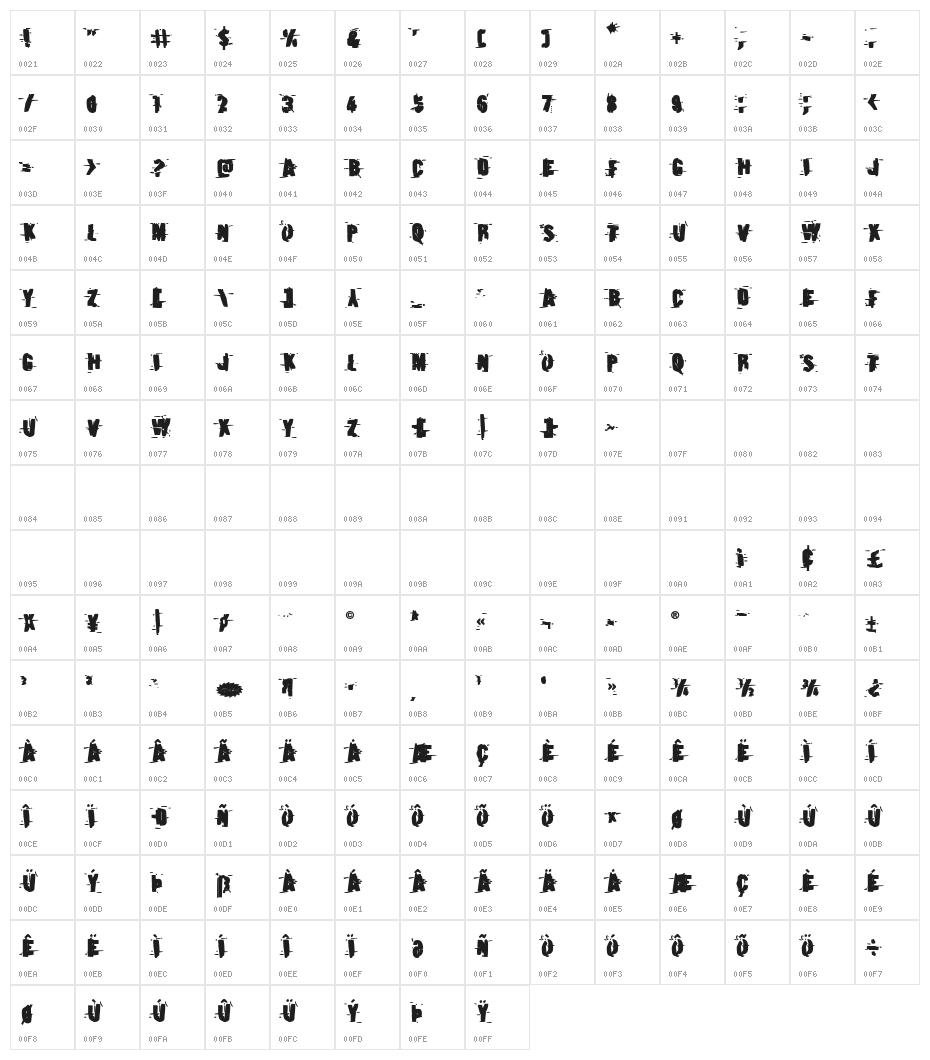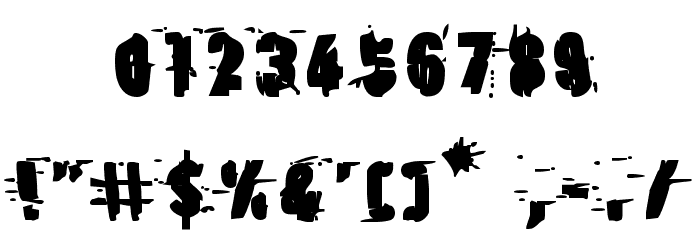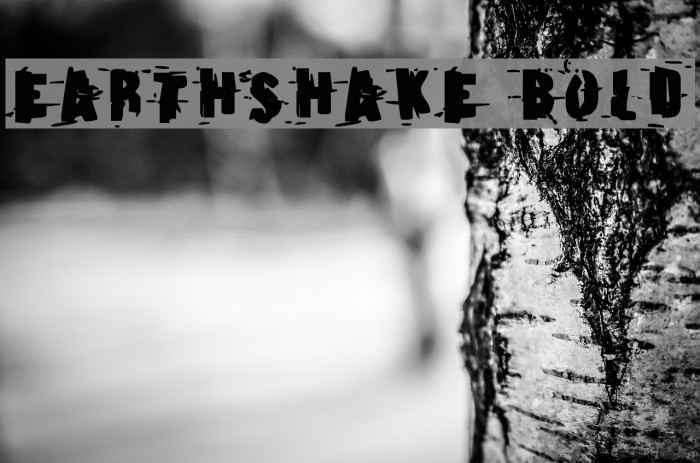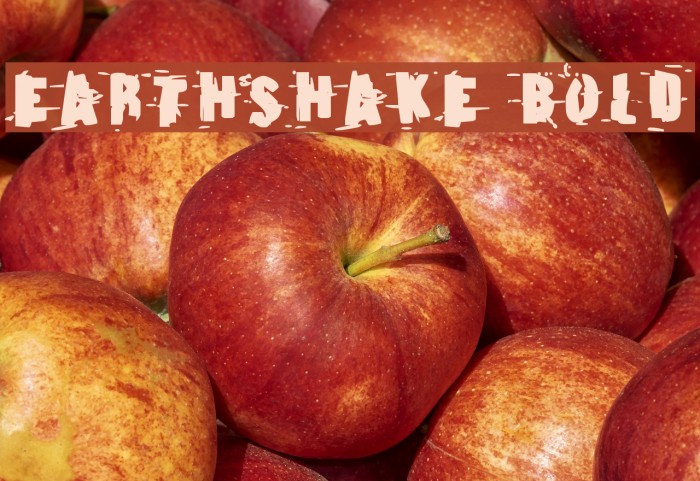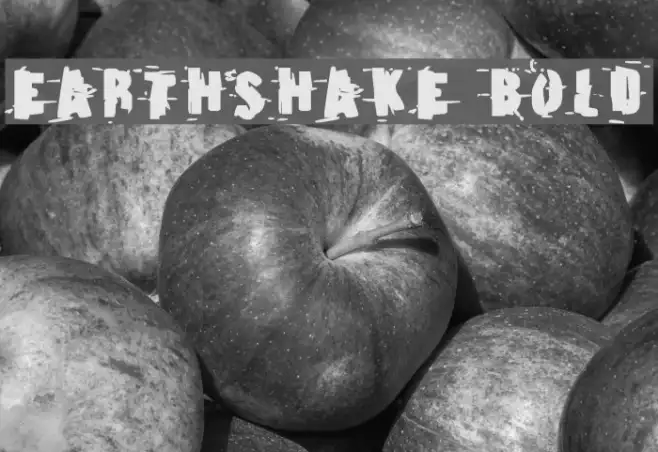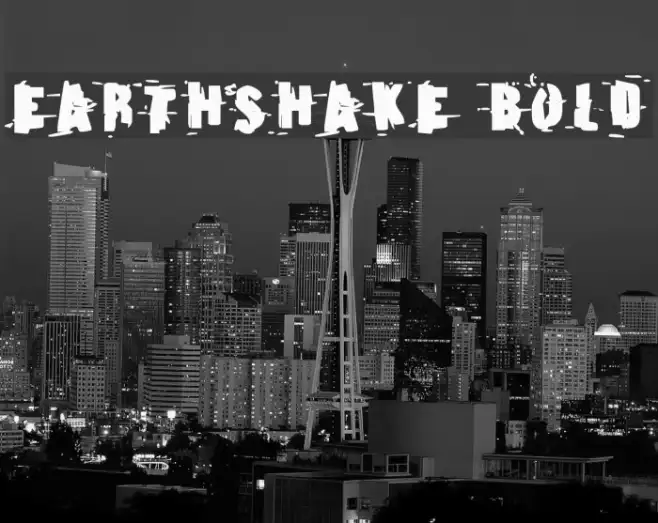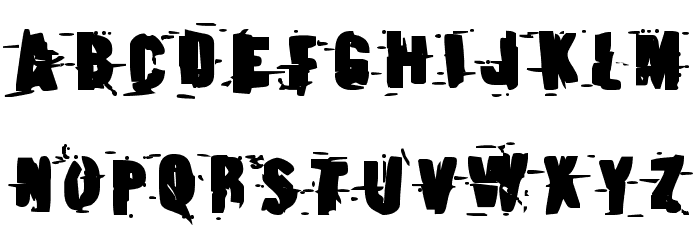
Earthshake Bold Font
Earthshake Bold Description
This bold, distressed font features a rugged and weathered appearance, reminiscent of cracked surfaces or worn textures. The characters are heavily stylized with irregular edges and a rough, grunge-like aesthetic. Each letter and number is uniquely distressed, giving the font a dynamic and energetic feel. The bold weight enhances its impactful presence, making it ideal for attention-grabbing designs. The font's unique style is perfect for projects that require a raw, edgy look, such as music album covers, posters, or urban-themed graphics.
| Proposed Projects | Ideal for music album covers, posters, urban-themed graphics, and any project needing an edgy, impactful look. |